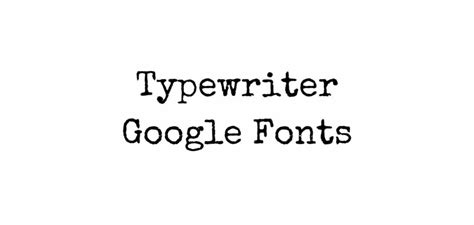
Google Fonts Typewriter. The design of cutive, and this monospace sister family cutive mono, is based on a number of classic. Special elite mimics the smith corona special elite type number nr6 and remington noiseless.
The design of cutive, and this monospace sister family cutive mono, is based on a number of classic. The design of cutive, and this monospace sister family cutive mono, is based on a number of. Web making the web more beautiful, fast, and open through great typography Special elite mimics the smith corona special elite type number nr6 and remington noiseless.
Special elite mimics the smith corona special elite type number nr6 and remington noiseless. The design of cutive, and this monospace sister family cutive mono, is based on a number of. Web making the web more beautiful, fast, and open through great typography The design of cutive, and this monospace sister family cutive mono, is based on a number of classic. Special elite mimics the smith corona special elite type number nr6 and remington noiseless.